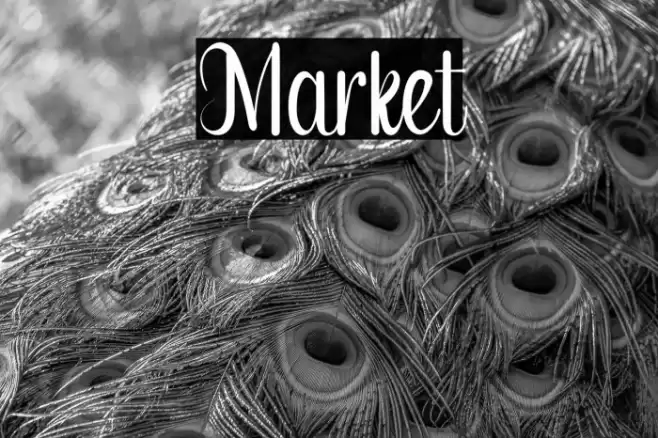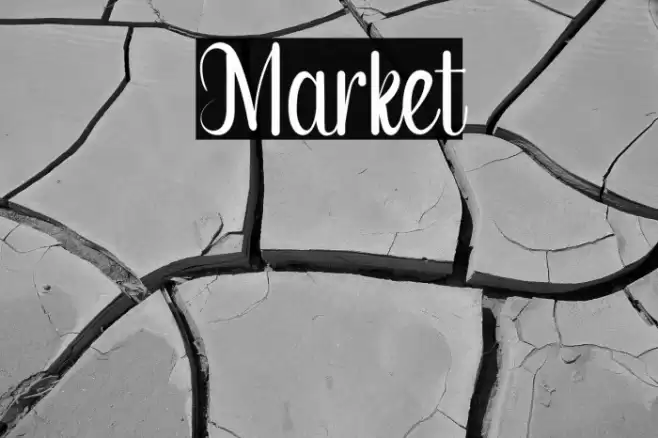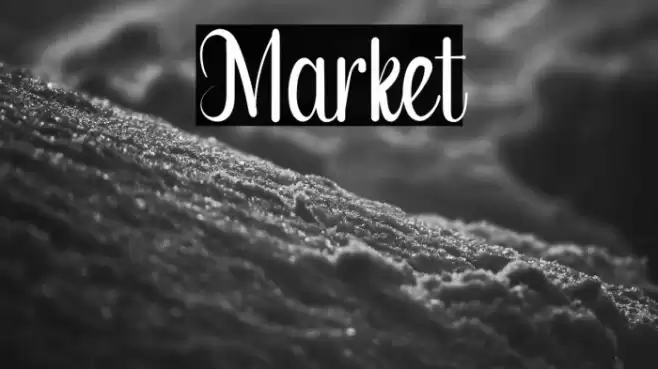
Market Font
Market Description
This font features a playful and elegant script style with a modern twist. The uppercase letters are characterized by their flowing, interconnected strokes, giving a sense of movement and fluidity. The lowercase letters maintain a consistent style, with some letters featuring unique loops and swirls that add a touch of whimsy. The overall design is clean and legible, making it suitable for various creative applications. The font's special characters are designed to match the overall aesthetic, ensuring a cohesive look across all text elements.
| Use Case | Logos, Invitations, Decorative text |
| Proposed Projects | Ideal for wedding invitations, greeting cards, branding projects, and decorative quotes. |